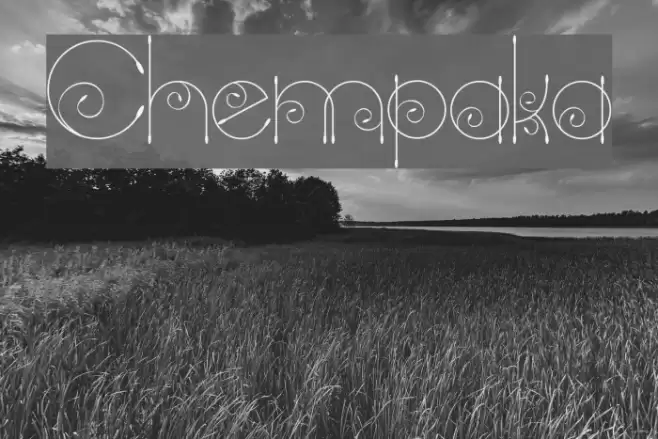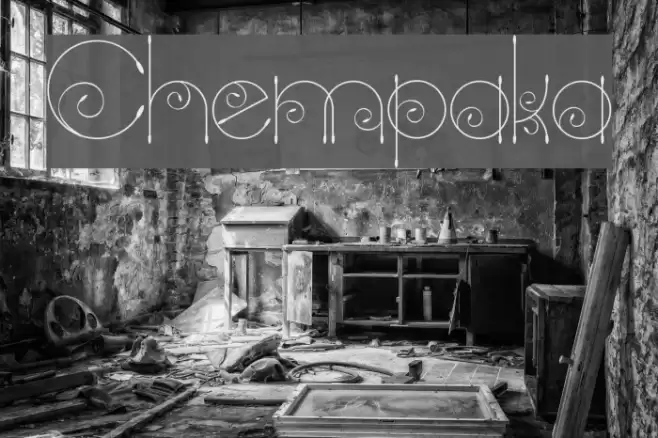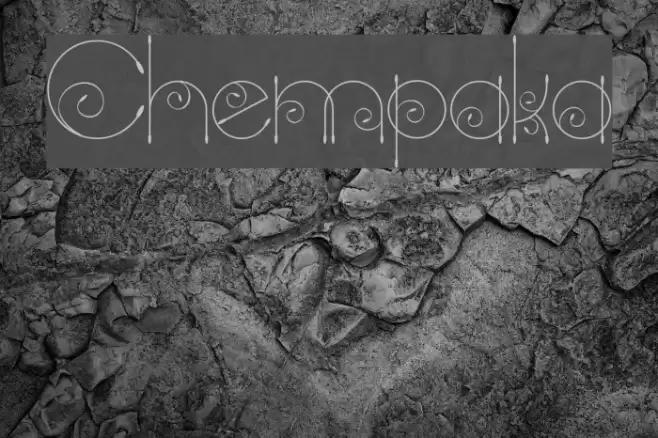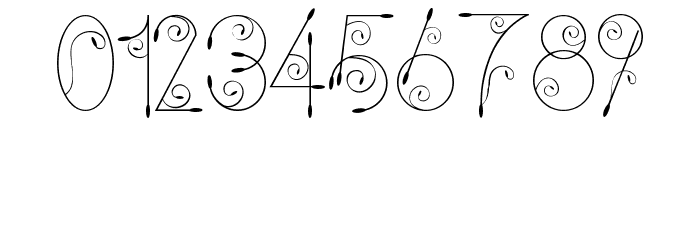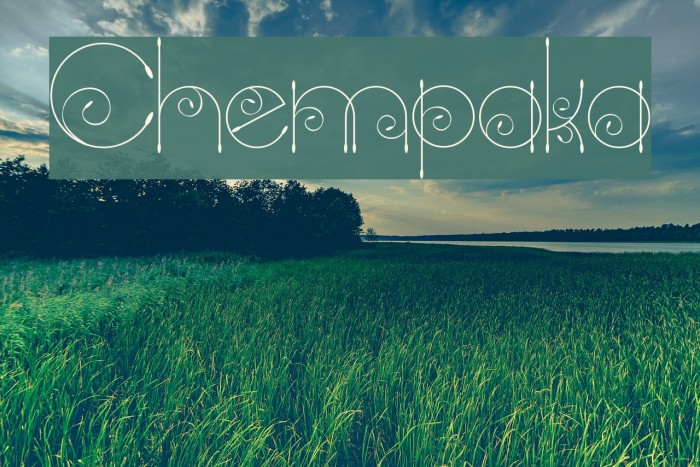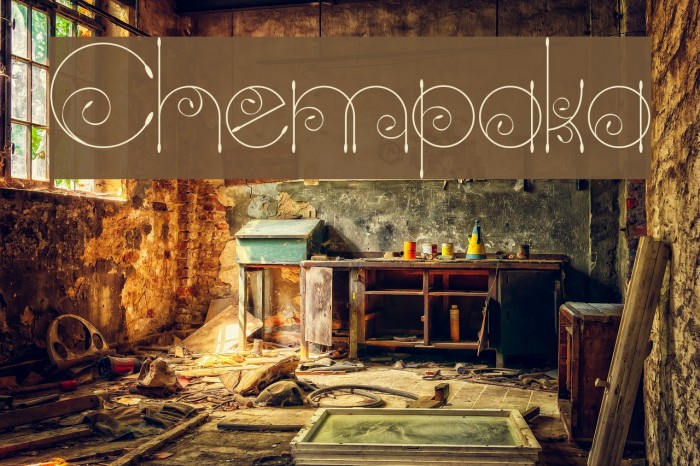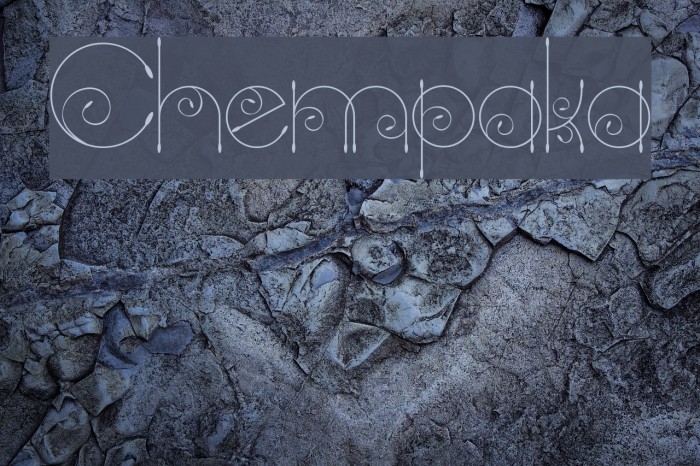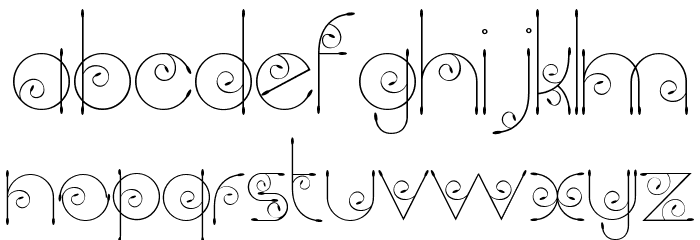
Chempaka Font
Chempaka Description
This font is a decorative and whimsical typeface characterized by its intricate swirls and curls. Each letter is adorned with delicate, vine-like embellishments that give it a unique, artistic flair. The strokes are thin and elegant, with a consistent line weight that maintains a sense of harmony throughout the alphabet. The font's playful nature makes it ideal for creative projects that require a touch of elegance and fantasy. The numbers and special characters are equally ornate, ensuring a cohesive look across all text elements.
A decorative font with intricate swirls and vine-like embellishments from Uncategorized fonts.
- Proposed Projects: Ideal for wedding invitations, greeting cards, artistic posters, and branding that requires a whimsical touch.
- Use Case: Logos, Invitations, Artistic Projects